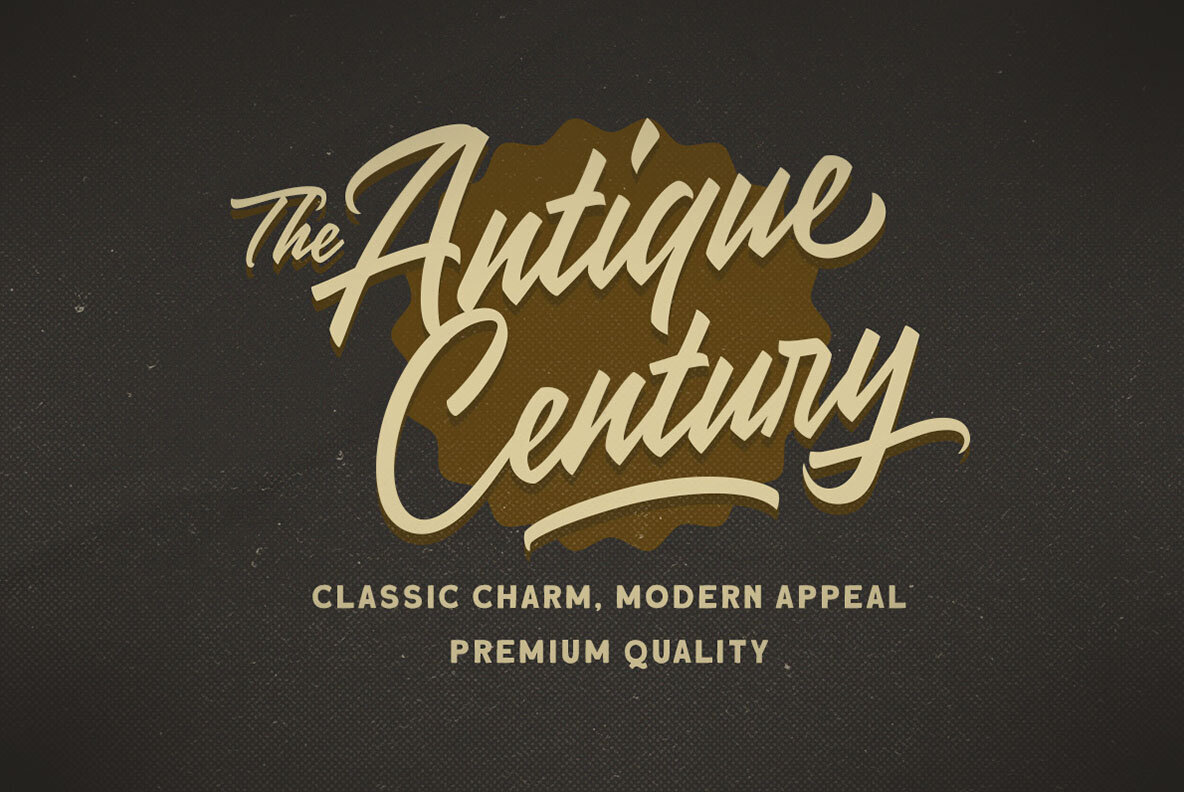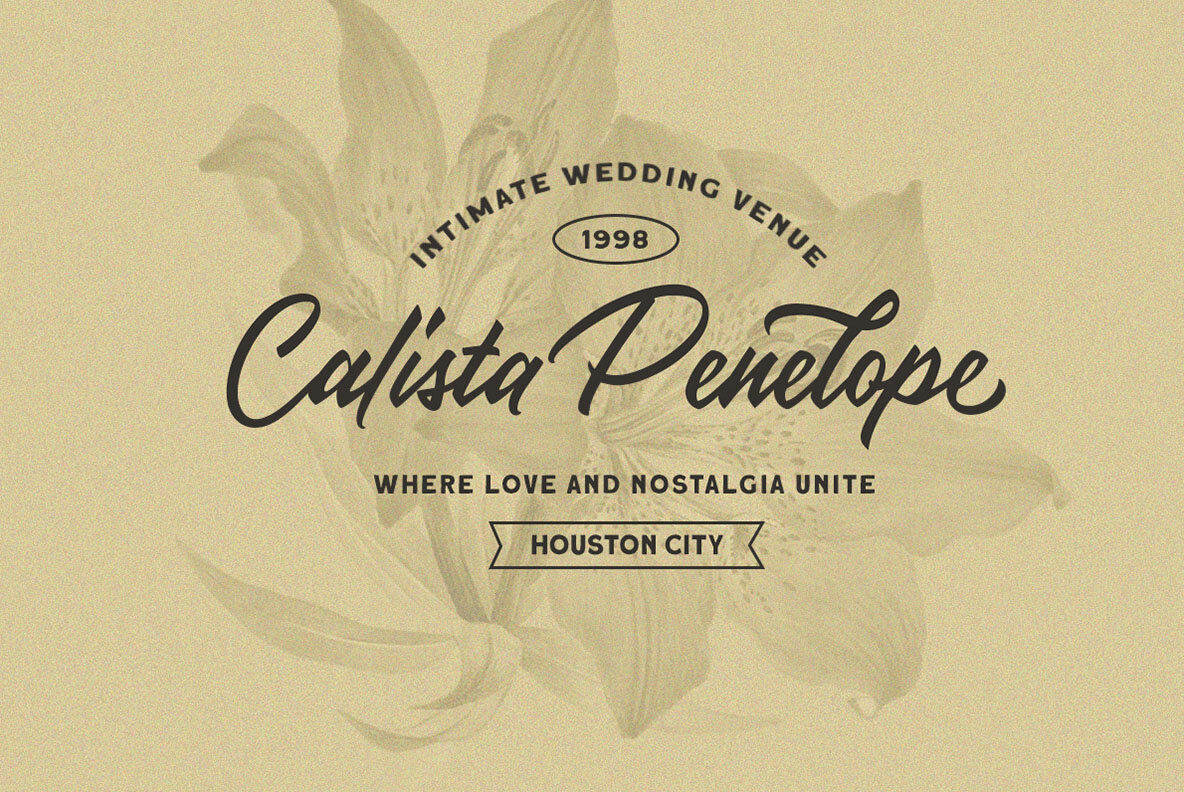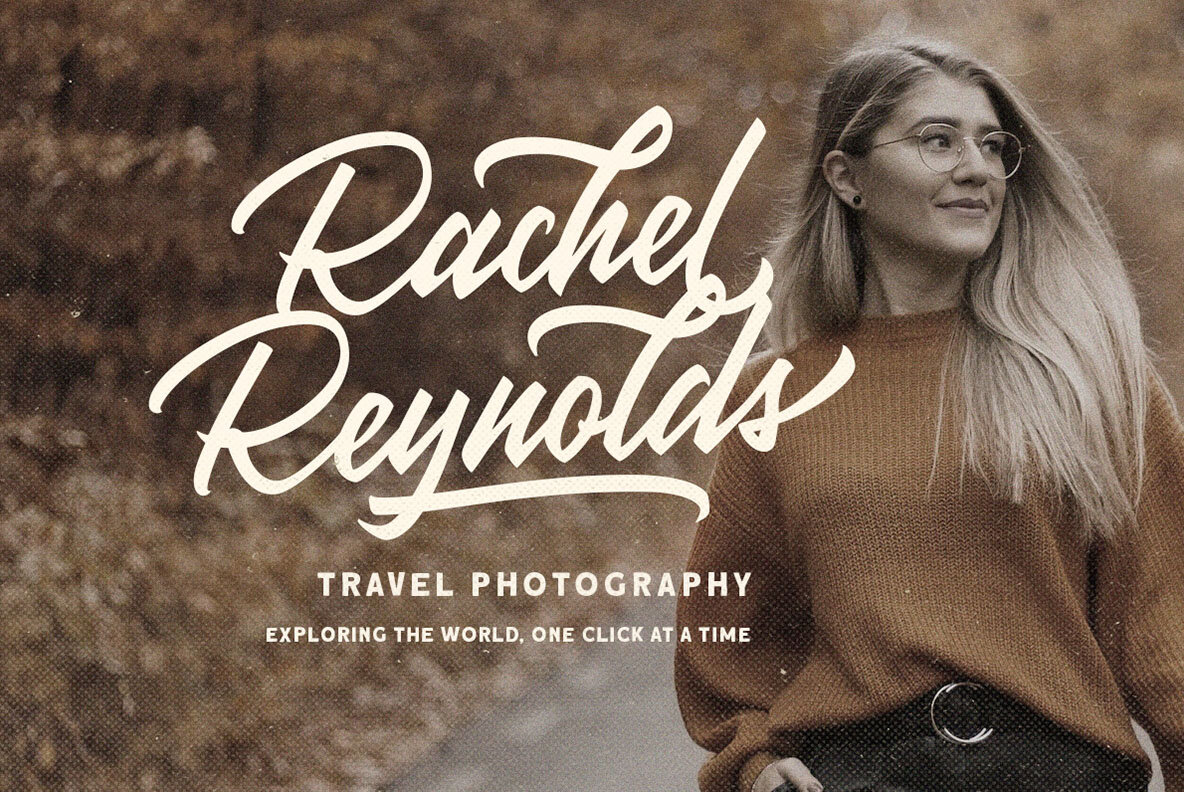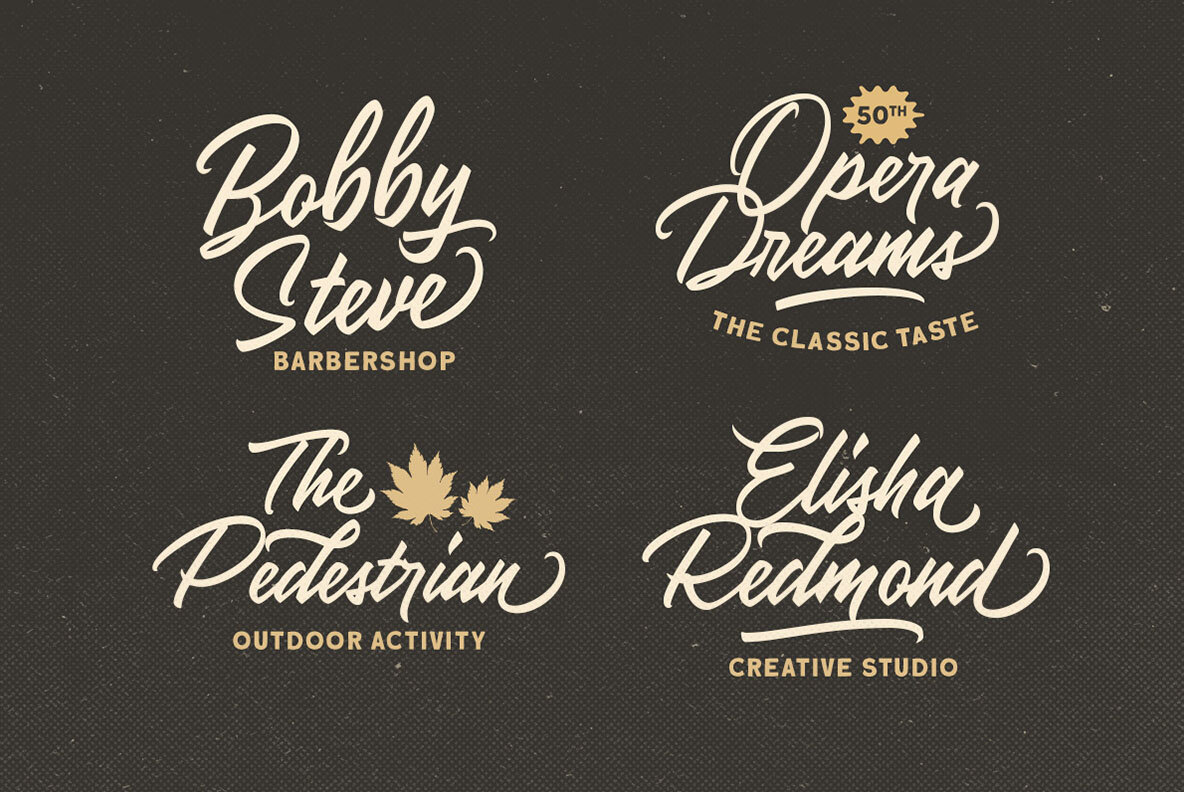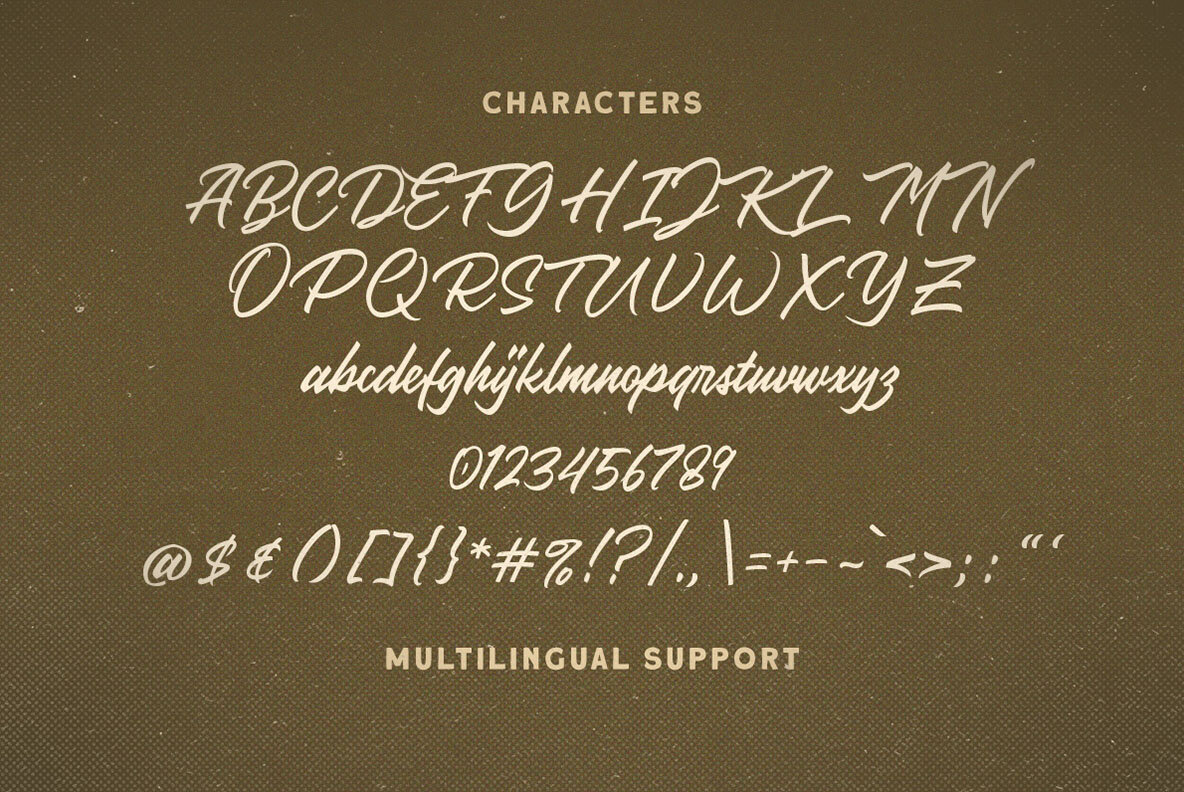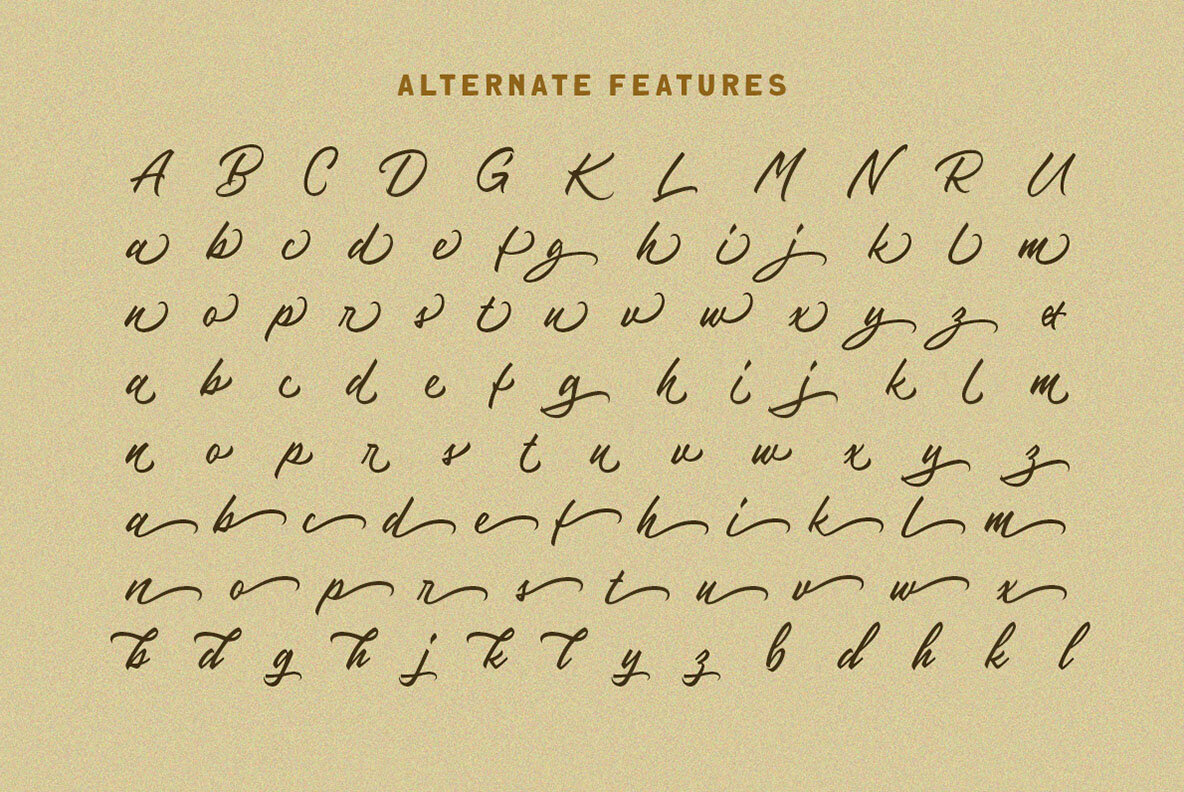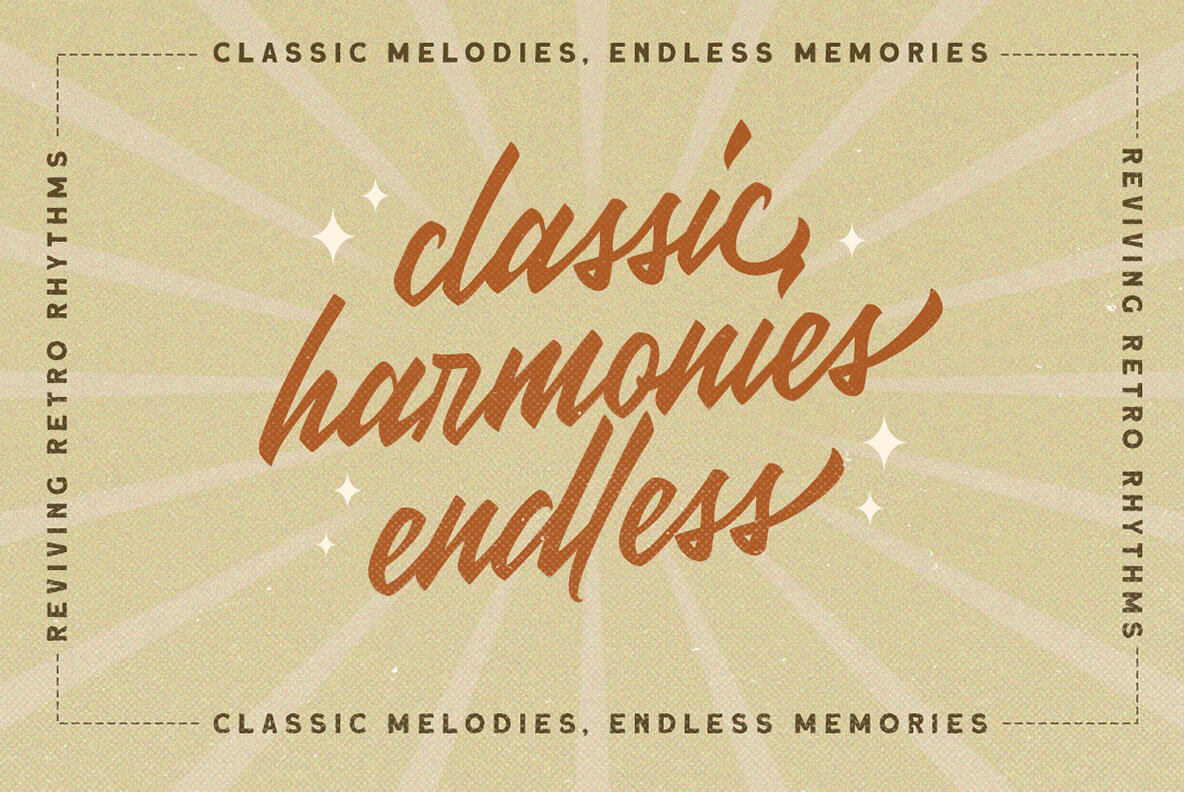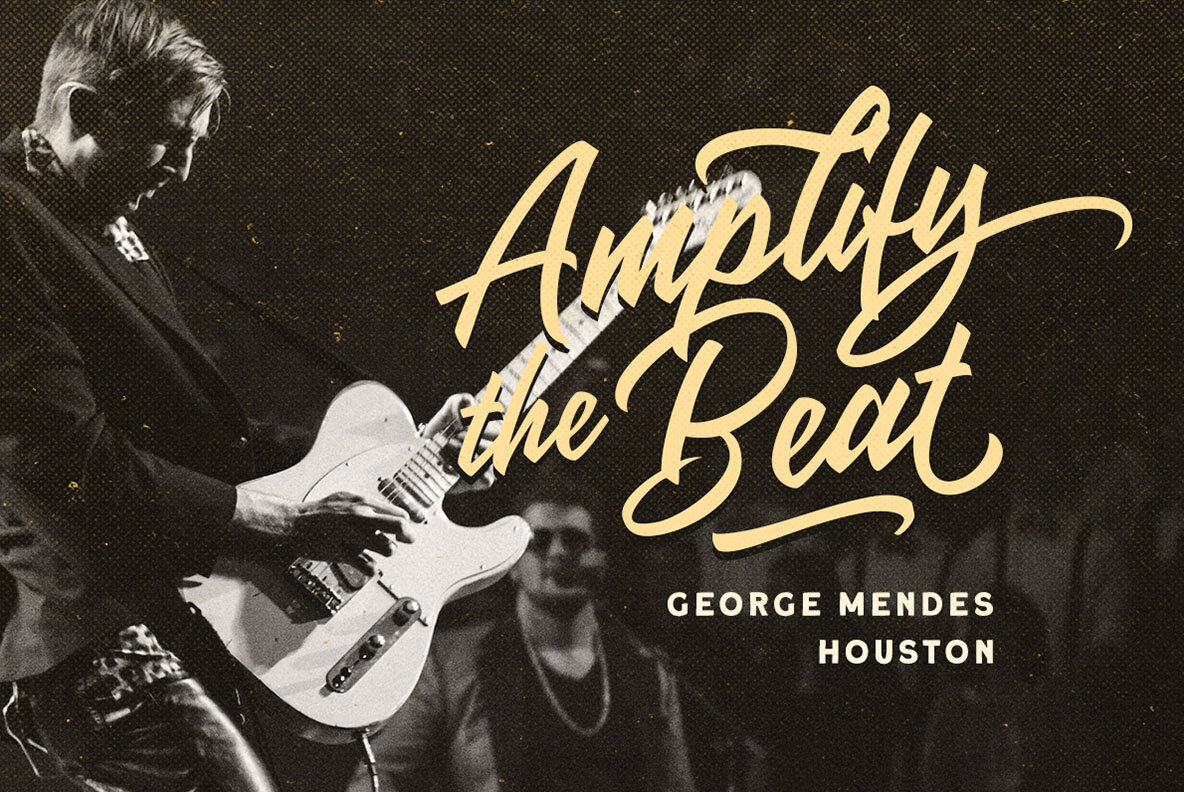
Thalia Threshold Font
Thalia Threshold Regular
Thalia Threshold is a brush script font featuring classic charm. Its design allows for creative use of alternate characters, making it an ideal choice for various formal applications. Perfect for logos, invitations, labels, magazines, books, greeting and wedding cards, packaging, fashion, stationery, novels, and a wide range of advertising purposes. For full access to Glyph variations and OpenType features, it is recommended to use software such as Adobe applications or Corel Draw, which support these functionalities.Thalia Threshold: A Classic Brush Script with Elegant Versatility